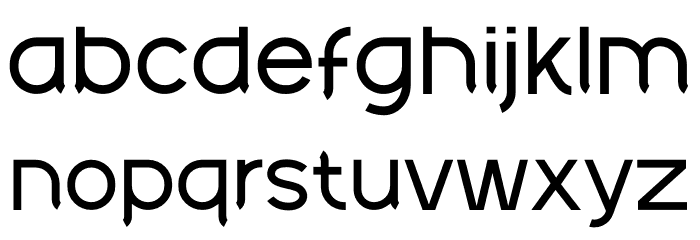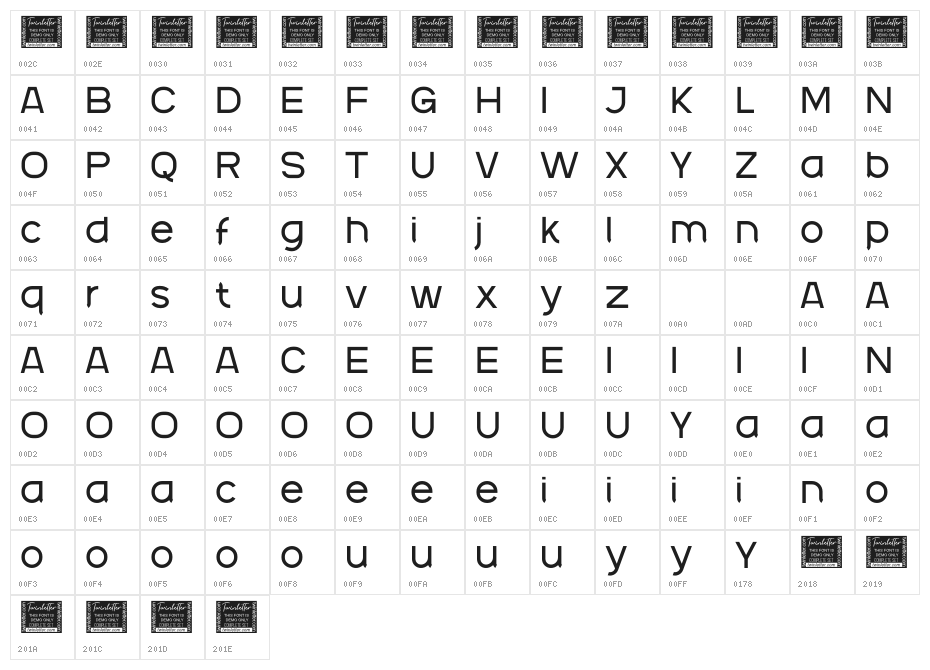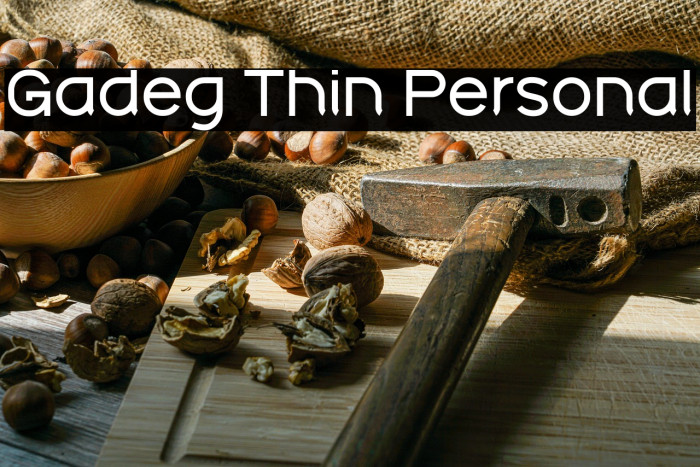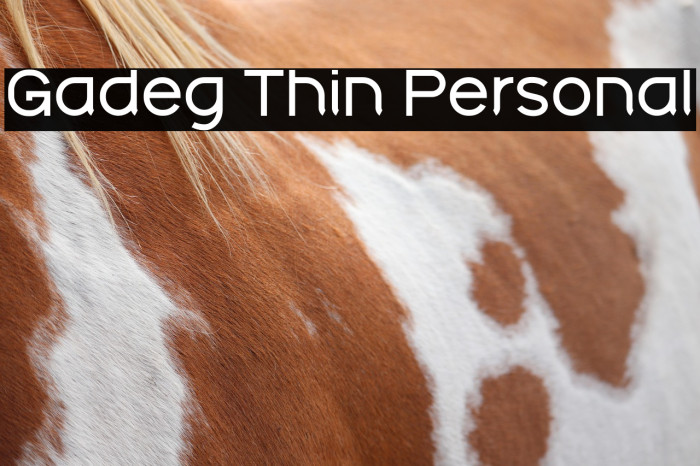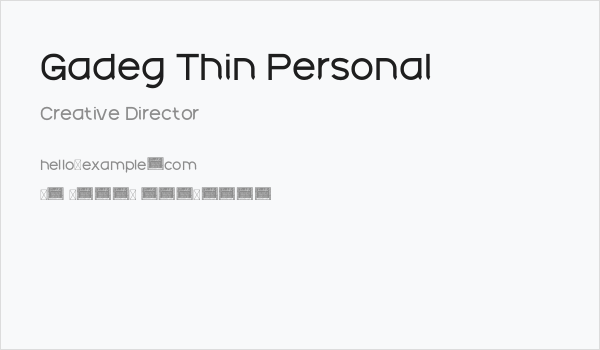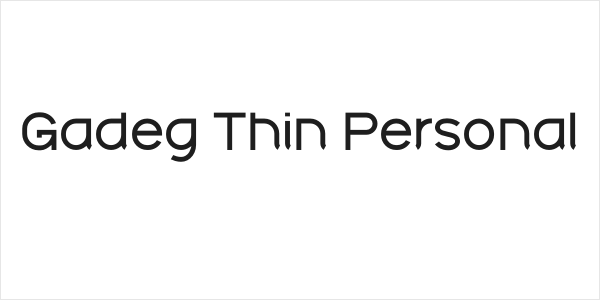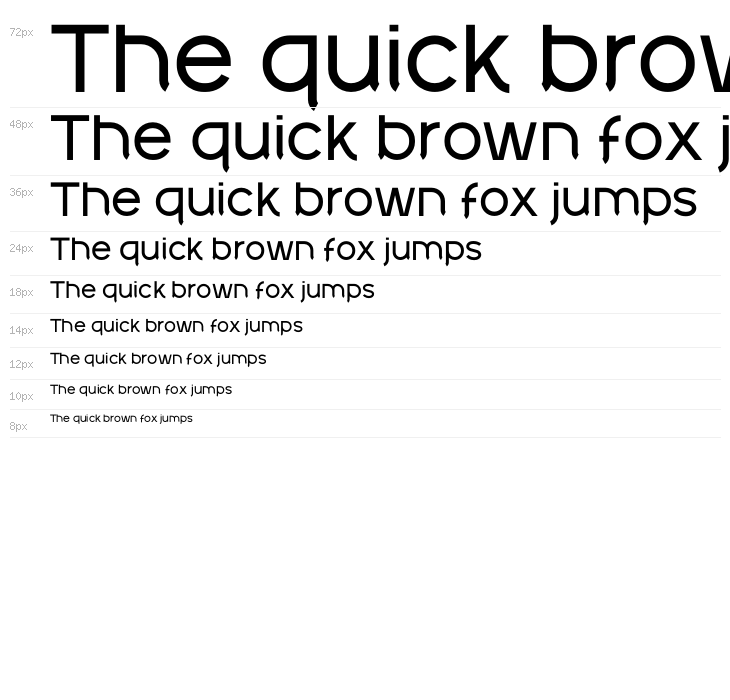
Gadeg Thin Personal Font
This font features a clean and modern design with a minimalist aesthetic. The characters are evenly spaced and exhibit a uniform stroke width, contributing to a sleek and contemporary look. The uppercase and lowercase letters maintain a consistent style, with smooth curves and straight lines that enhance readability. The numerals and special characters are designed to match the overall style, ensuring a cohesive appearance across all text elements. This font is suitable for digital and print media, offering versatility in various design applications.
A clean, modern font with uniform stroke width and minimalist design.
- Proposed Projects: Ideal for branding, web design, advertising, and editorial projects.